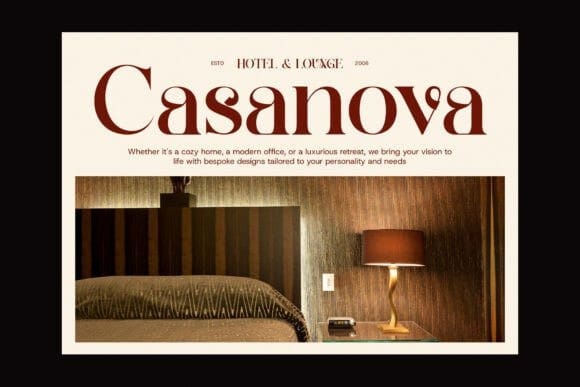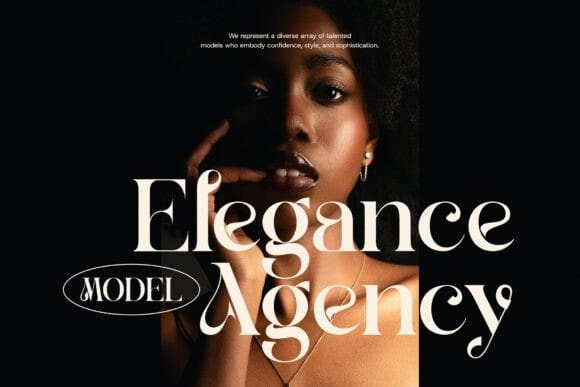
Marlia Serif Font
Marlia Serif Font – Modern Serif Font is a stunning blend of elegance and contemporary design, offering a fresh take on classic serif typography. With its sleek, stylish serifs and carefully crafted letterforms, Marlia delivers a sophisticated yet modern aesthetic that elevates any design project. The font is enriched with beautiful ligatures and alternate characters, adding a distinctive flair to your work and allowing for greater creative expression.
Perfectly suited for a wide range of applications, Marlia shines in branding, logo design, and high-end product packaging. Its versatility ensures it stands out across websites, advertisements, magazines, and other print materials. Whether you’re designing a luxurious boutique brand or a chic restaurant menu, Marlia provides the perfect balance of readability and elegance.
The font’s refined, contemporary style makes it ideal for industries that demand an upscale, professional look. From fashion and beauty to food and lifestyle brands, Marlia Serif is the go-to choice for those looking to make a lasting impression. It’s designed to be adaptable, with features that work seamlessly for both digital and print formats, ensuring your brand maintains its polished presence across platforms.
With Marlia Modern Serif Font, your designs will exude confidence and class. Its unique character shapes, combined with its modern and timeless appeal, make it the perfect font for anyone seeking to create standout logos, sophisticated layouts, and captivating advertising materials. Let Marlia transform your next design with its elegant charm and modern sensibility.